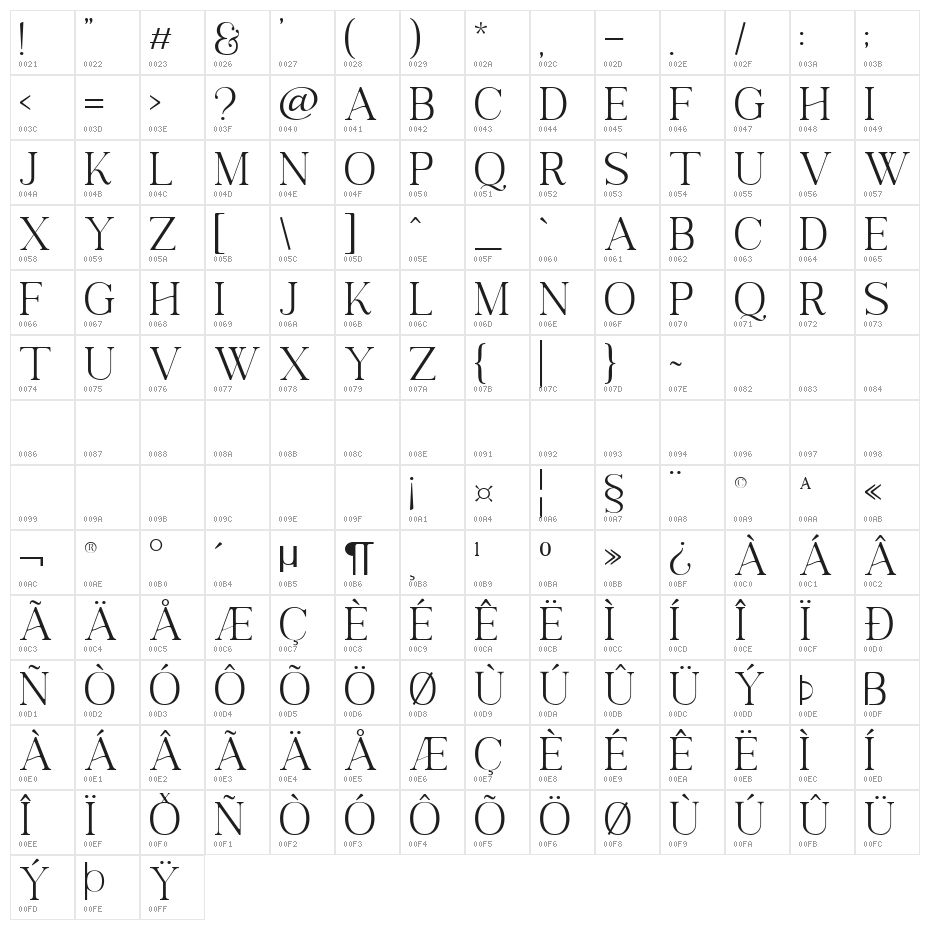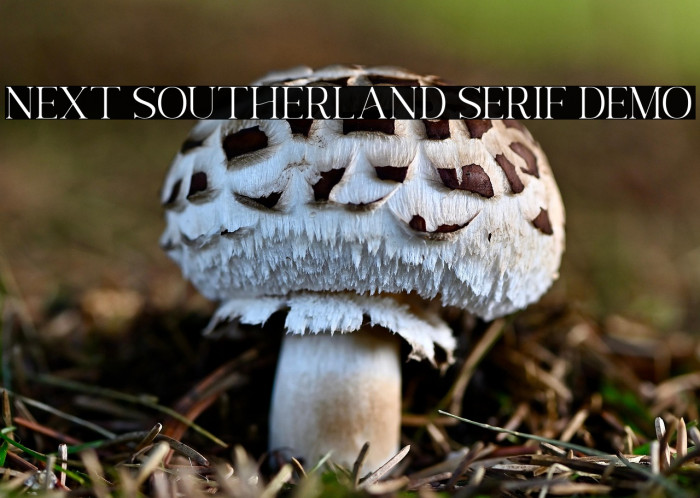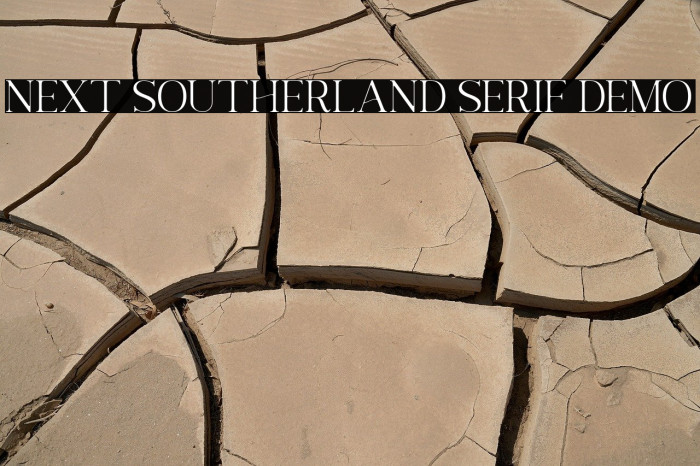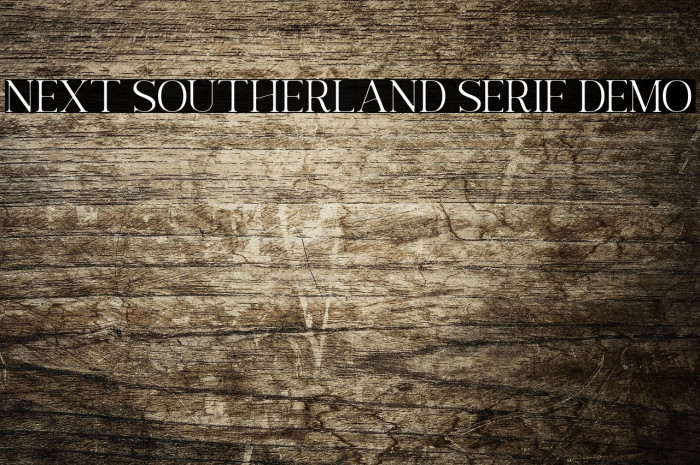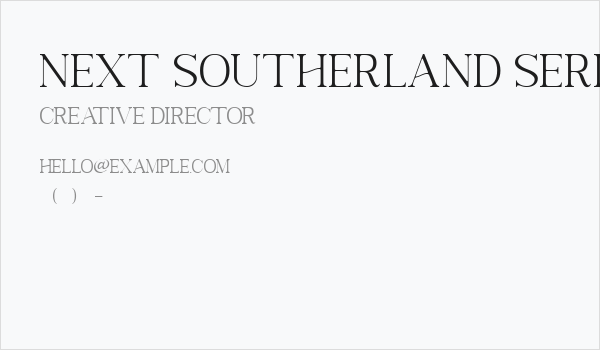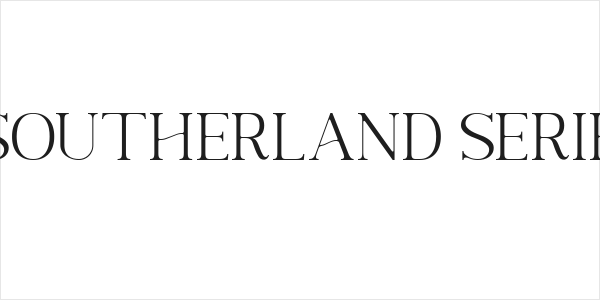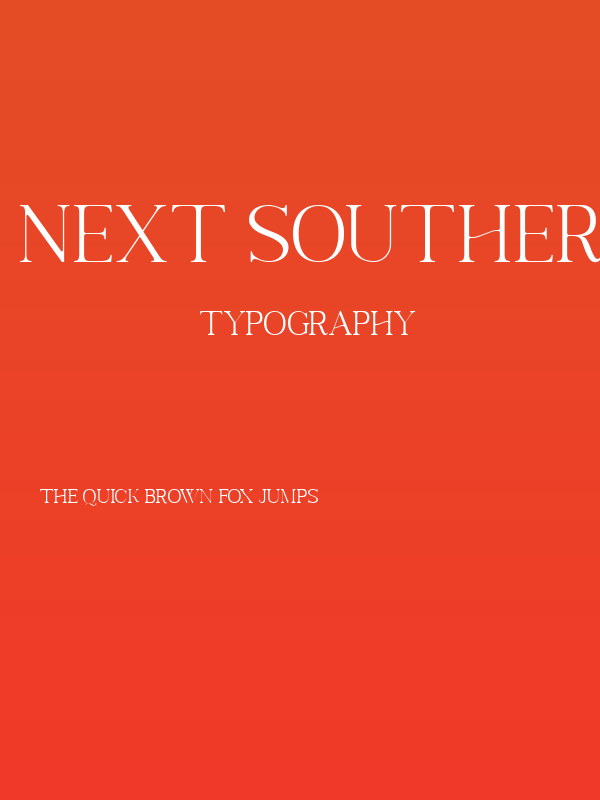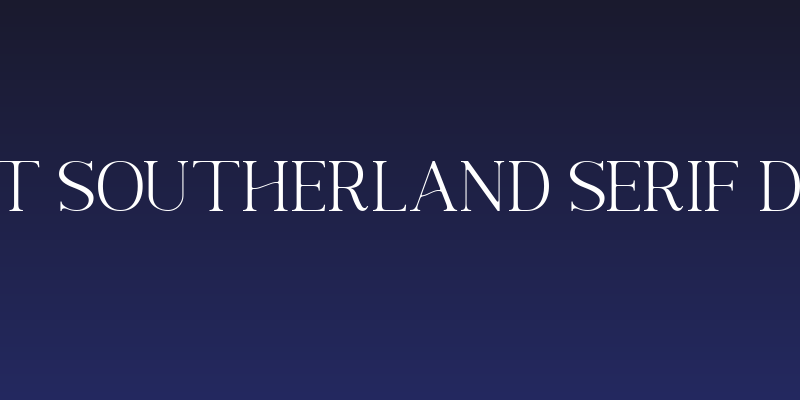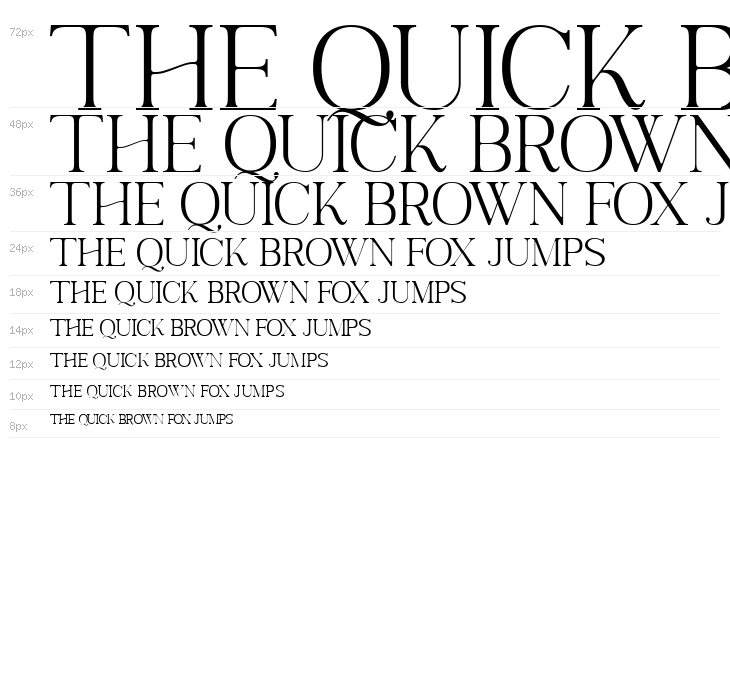
Next Southerland Serif DEMO Font
Next Southerland Serif DEMO Description
This serif font exudes elegance and sophistication, characterized by its thin, elongated strokes and sharp serifs. The uppercase letters are tall and stately, with a refined presence that commands attention. The lowercase letters maintain a consistent style, offering a harmonious balance with the uppercase. The numerals are distinct and clear, making them suitable for both formal and modern contexts. Special characters are crafted with the same attention to detail, ensuring versatility across various applications. The overall design is both classic and contemporary, making it a timeless choice for a wide range of projects.
Overall StyleClassic
Use CaseHeadlines, Logos, Editorial Design
Proposed ProjectsIdeal for luxury branding, editorial design, wedding invitations, and high-end product packaging.